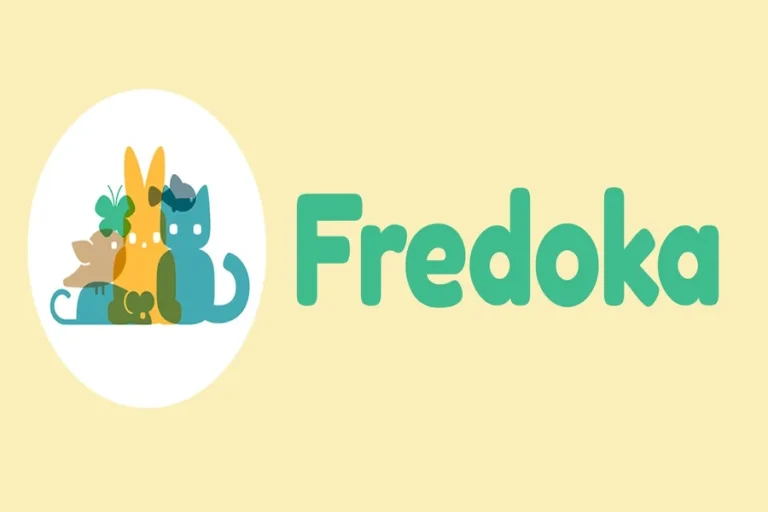
Fredoka One Font Style Guide and Creative Uses
Fredoka One font has become a favorite among designers who want something bold, playful, and instantly eye catching. It is a rounded display type face that is easy to notice even on children book covers without being obnoxious as their modern brand logos are. It is of a light spirit that renders text friendly and cozy.
If you have ever scrolled through design platforms or social media graphics, chances are you have seen Fredoka One font in action. For those looking for inspiration, sippline offers a collection of creative uses for this font. Its heavy lines and rounded edges produce the impression of fun and at the same time it has good readability. We will examine its history, design characteristics, applicable uses, pairing concepts, and how to ensure the best output of this in this guide.
The Story Behind Fredoka One Font
Fredoka One font was created as part of the Fredoka type family, designed to bring a friendly and informal feel to typography. It was created by a typographer Milena Brandao, and then it became popular with the help of Google Fonts. It became popular among designers, bloggers and small business owners very fast; this was due to the fact that it is free and readily available.
This typeface was constructed to be impactful unlike classic serif fonts which emphasize on style and formalism. It is more of a display font and therefore is best in large fonts like headlines, banners and logos. However, it has since been applied in websites, product wrapping, learning resources, and even in mobile apps.
Key Features That Make It Unique
The most noticeable feature of Fredoka One font is its rounded letterforms. All the characters are tender and bubbly. Its penetrating strokes make it robust, and its curves make it lighthearted and not rough.
The other significant characteristic is its consistent weight. This typeface has constant thickness unlike fonts that alternate between thick and thin strokes. Such consistency is an addition to its daring and assertive appearance. It also enhances visibility particularly when it is applied on color backgrounds.
Spacing is another strength. It has a good balance of letters and the words can be read despite the decorative style of writing. This equilibrium is what makes most designers rely on it to brand and even promote.
It also has a wide range of languages and special characters that make it applicable to be used globally. Although it is bright in big texts, it may be oppressing on long texts. That is the reason, why it is used only in headings or short statements.
Where Fredoka One Font Works Best
Fredoka One font performs best in situations where personality matters. This typeface is in place with children, entertainment brands or creative startups.
It is particularly in use in posters, YouTube thumbnails, social media graphics and flyers of events. The heavy font makes headlines impressive even when one is away. It is visible on the computer screens and is vivid.
It is also used in small businesses in the form of logos and product packaging. This typeface is frequently used among bakeries, toy stores, craft brands, and informal cafes since it has a friendly touch. It is friendly without being less impactful.
Nonetheless, it might not be appropriate to use when writing formal documents, academic papers, or business reports. Its light heartedness is misplaced in serious contexts. This balance is important to understand in order to utilize it.
Smart Font Pairing Ideas
Pairing Fredoka One font with the right supporting typeface can elevate your design. It can be used with plain and unadorned fonts since it is bold and decorative.
The typical solution is to combine it with a neutral lettering, like Open Sans or Roboto. These fonts are contrasting and make the body text readable and leave Fredoka One to shine in the headings.
It also looks great when paired with light weight serif fonts, as a good combination of playful and classic. The key is contrast. Fredoka One is heavy and rounded so that when something thin or structured is used will bring visual harmony.
Bright and pastel colors can be used when it comes to colors as they tend to match its friendly tone. However, it may also be quite impressive in black on white background to feel more modern.
Tips for Using Fredoka One Font Effectively
Using Fredoka One font effectively requires balance. Less happens to be more because it is bold. Store it in headlines, brief slogans or outstanding phrases. The typeface should not have long paragraphs because it may slow down readability in the long run.
What type of brands should use Fredoka One font?
Brands that focus on children, entertainment, creative products, or casual services often benefit most from this font’s friendly personality.
Does Fredoka One font support multiple languages?
Yes, it includes support for various languages and special characters, making it suitable for international design projects.
How can I pair Fredoka One font with other fonts?
You can pair it with clean sans serif or light serif fonts to create contrast and maintain readability in longer text sections.